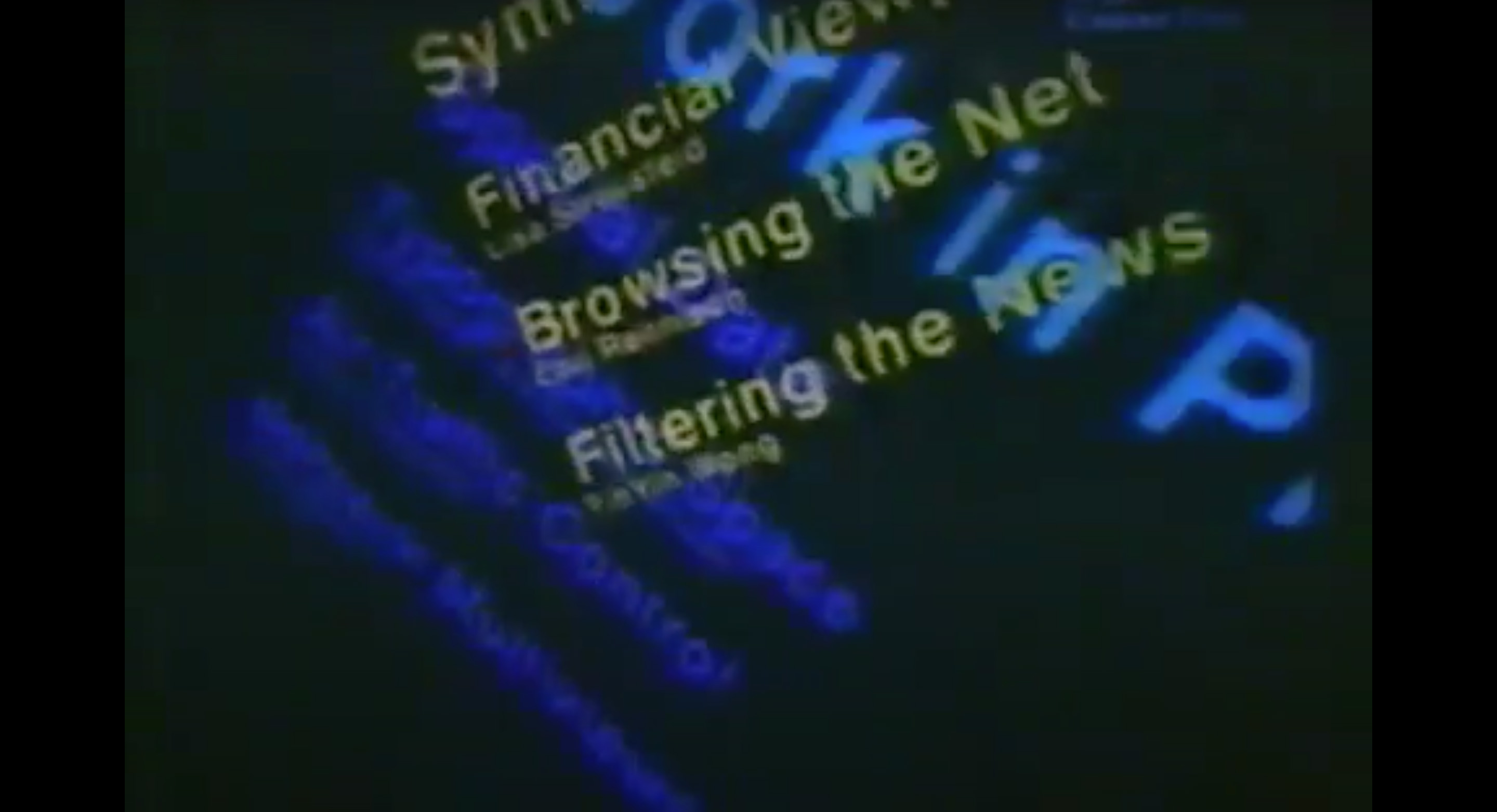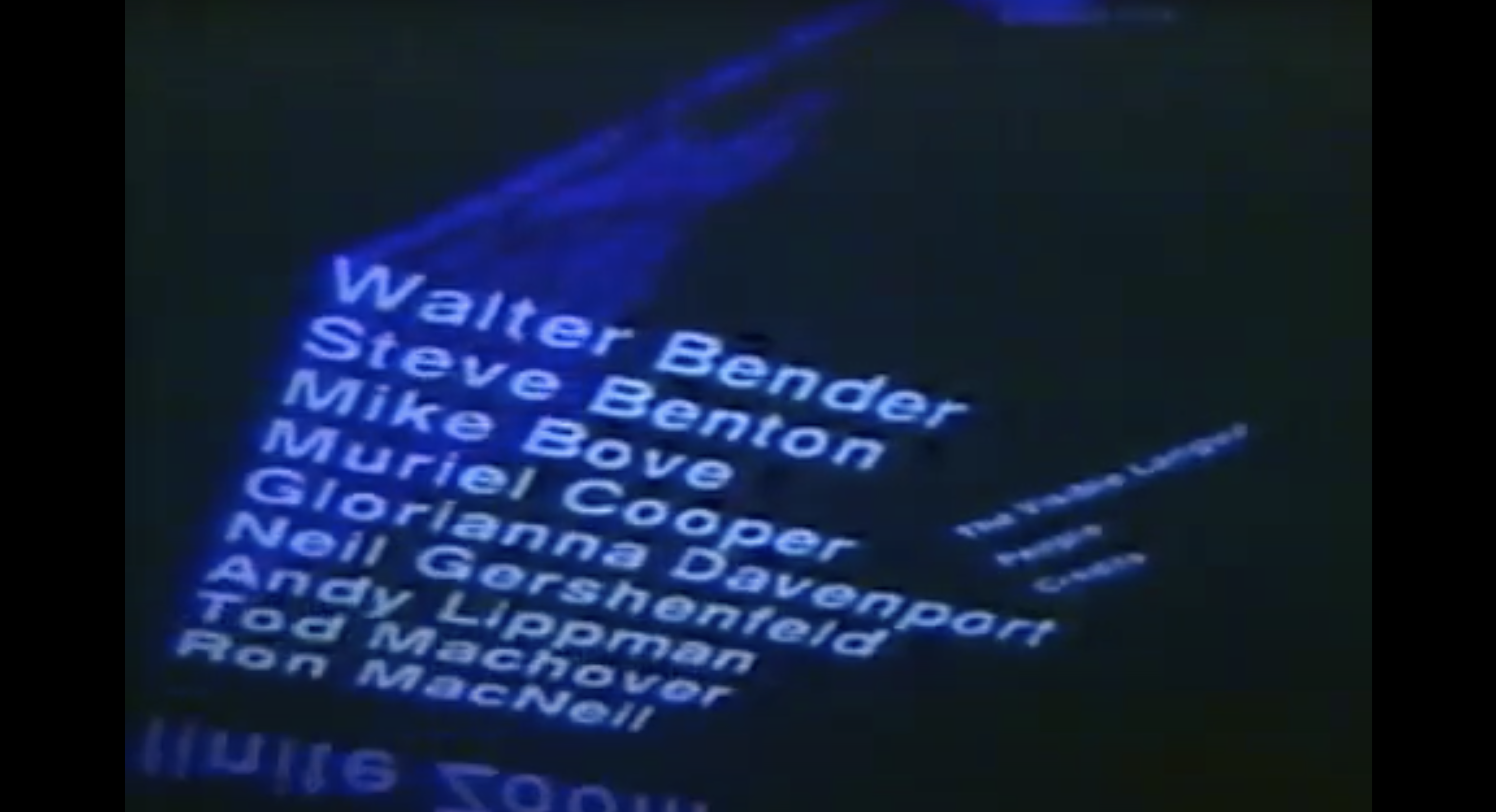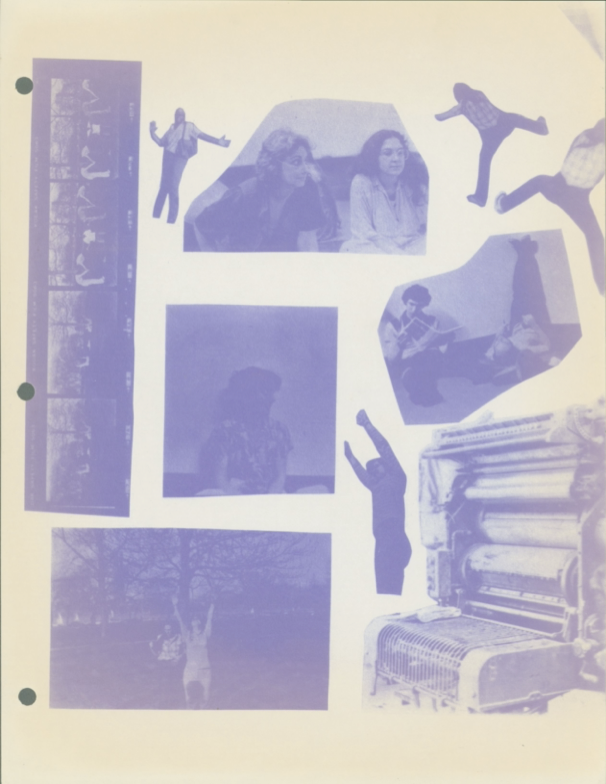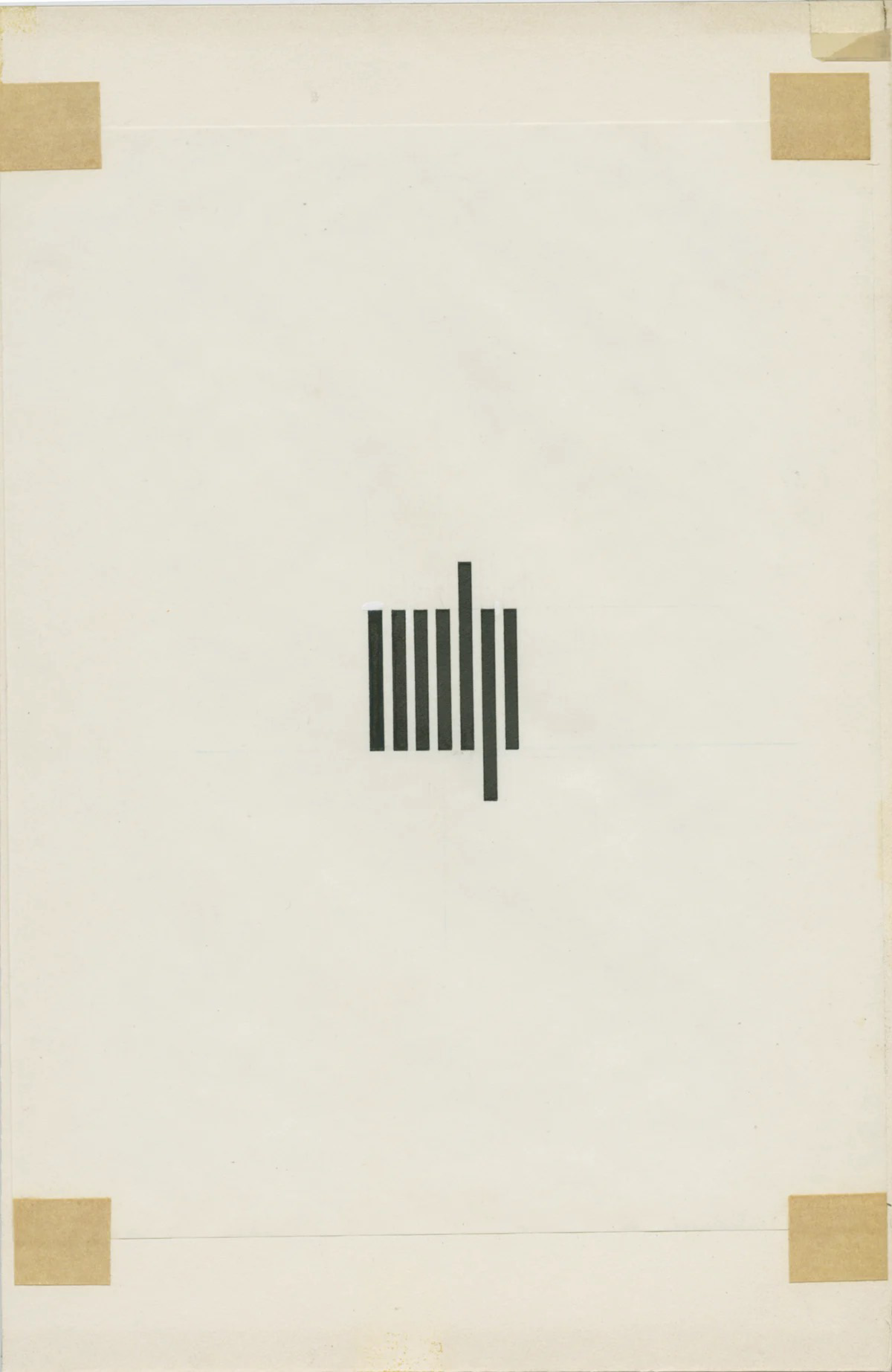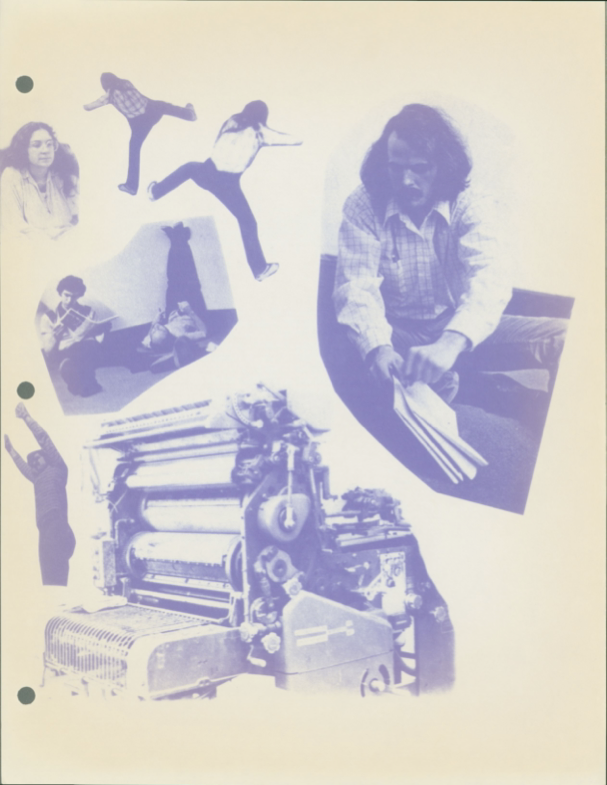
Not Flat and Rigid
but Immersive
and Constantly
Changing
“If today’s ever-expanding information universe began with one big bang, she was squarely at the center of it.” ↘ 1 Muriel Cooper: Designing a Bridge Between the Bauhaus & the Digital Age. Article: 99percentinvisible.org/article/muriel-cooper-designing-bridge-bauhaus-digital-age/, MIT Press is a quote by Pentagram’s Michael Bierut. He is talking about the designer, educator and scientist Muriel Cooper, which the New York Times described in 2007 as “the design heroine you’ve probably never heard of.” ↘ 2 Muriel Cooper: The unsung heroine of on-screen style. Article: www.nytimes.com/2007/09/28/style/28iht-design1.1.7670693.html.
Muriel Cooper at MIT in the early 1970s
Cooper is best known for her design for the logo of the MIT Press ↘ 3 Established in 1962, the MIT Press is affiliated with the Massachusetts Institute of Technology (MIT) in Cambridge, Massachusetts. It is one of the largest university presses in the world and a leading publisher of books and journals at the intersection of science, technology, art, social science, and design. Website: mitpress.mit.edu (1952).
MIT Press colophon
Together with Ron MacNeil Cooper co-founded the Visible Language Workshop at MIT in 1973, which evolved out of her previous course Messages and Means.
Photo collages from the “Visible Language Workshop” in spring 1979
With the Visible Language Workshop Cooper and MacNeil created a space, in which students could explore and experiment with photography, typesetting, platemaking and particularly examining interactive design.
Messages and Means course poster, designed and printed at the Visible Language Workshop
“Messages and Means” course poster, designed and printed at the Visible Language Workshop
Self-portrait by Muriel Cooper with a Polaroid SX-70, video imaged and printed at the Visible Language Workshop
In the late 1970s, Cooper turned her focus to digital interfaces and computer-based graphic design. “When you start talking about design in relation to computers, you’re not just talking about how information appears on the screen, you’re talking about how it’s designed into the architecture of the machine and of the language.” Muriel Cooper said just shortly before she died in 1994. “You have different capabilities, different constraints, and variables than you have in any other medium, and nobody even knows what they are yet.” ↘ 4 MIT News: Muriel Cooper. Article: news.mit.edu/1994/cooper-0601.
Exploring dynamic design spaces
In 1994, shortly before her death, Cooper presented what she called Information Landscapes at the TED 5 Conference in California. The Information Landscapes was a series of projects she worked on with her students Suguru Ishizaki, David Small, and Lisa Strausfeld for about 10 years as part of the Visible Language Workshop at the MIT Media Lab. ↘ 5 Muriel Cooper, Information Landscapes: Article: www.revue-backoffice.com/en/issues/01-making-do-making-with/nolwenn-maudet-muriel-cooper-information-landscapes.
The Information Landscapes depicted a new interface that explored the possibilities of computer and graphic design in the digital realm and explored 3D visions of cyberspace, which was a completely new approach at this time. The projects offered viewers a new experience in which they took an active role inside this three-dimensional multimedia space, which also had no defined time frame.
“How do you retain the integrity of the information and at the same time retain the context and the cues that allow you to traverse complex information?” asks Muriel Cooper in her presentation at the TED 5 conference
Excerpt from the student project “Typography in Space” presented at the TED 5 conference in 1994
The project Typography in Space showed their approach to how graphic design, especially typography, is no longer just thought of as a printed plan, which is always constructed around restrictions. The computer screen is also a delimited window, but Cooper’s work resulted in visual works that were dynamic, immersive, and constantly changing and somehow alike the human’s field of vision. Moreover, the typographic elements were constantly changing, creating a variety of different landscapes for the viewer.
Due to the spatial arrangement of the typographic elements, readers were not told in which order they should grasp the information. Thus, this arrangement allowed readers to connect and compare information and to really experience and discover what they read, which would not have happened in a linear presentation.